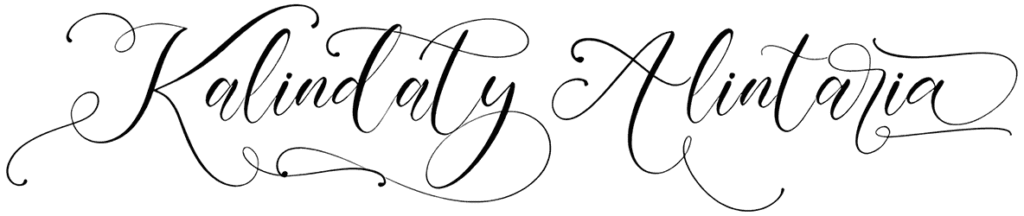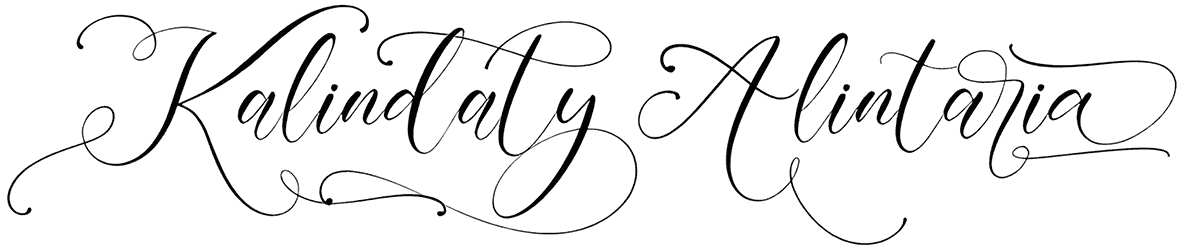
Kalindaty Alintaria Font
With a unique and elegant hand art face, your intended design can catch a lot of attention. This ace calligraphy font, named Kalindaty Alintaria, has a delicate and twisted letter style and supports full characters. With two versions, this chic signature pickup would be an ideal choice for many creative items such as business cards, planners, novels, and others.